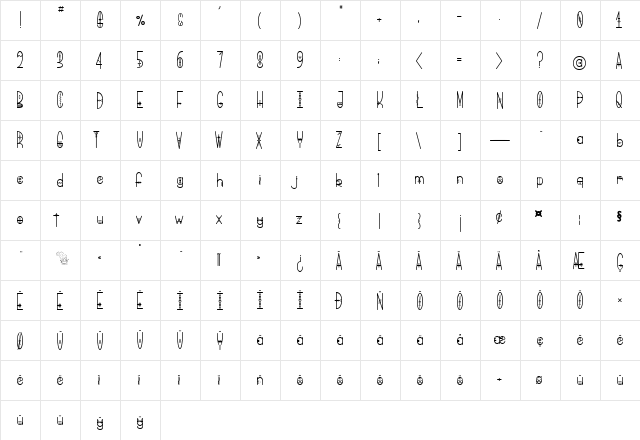
Bring me That Glyph Regular
| Foundry | dcoxy Medina Gregory |
| Designer | dcoxy Medina Gregory |
Design Context for Bring me That Glyph Typeface
Bring me That Glyph offers clean, dependable letterforms without strong stylistic allegiance, making it a practical choice for designers who need flexibility.